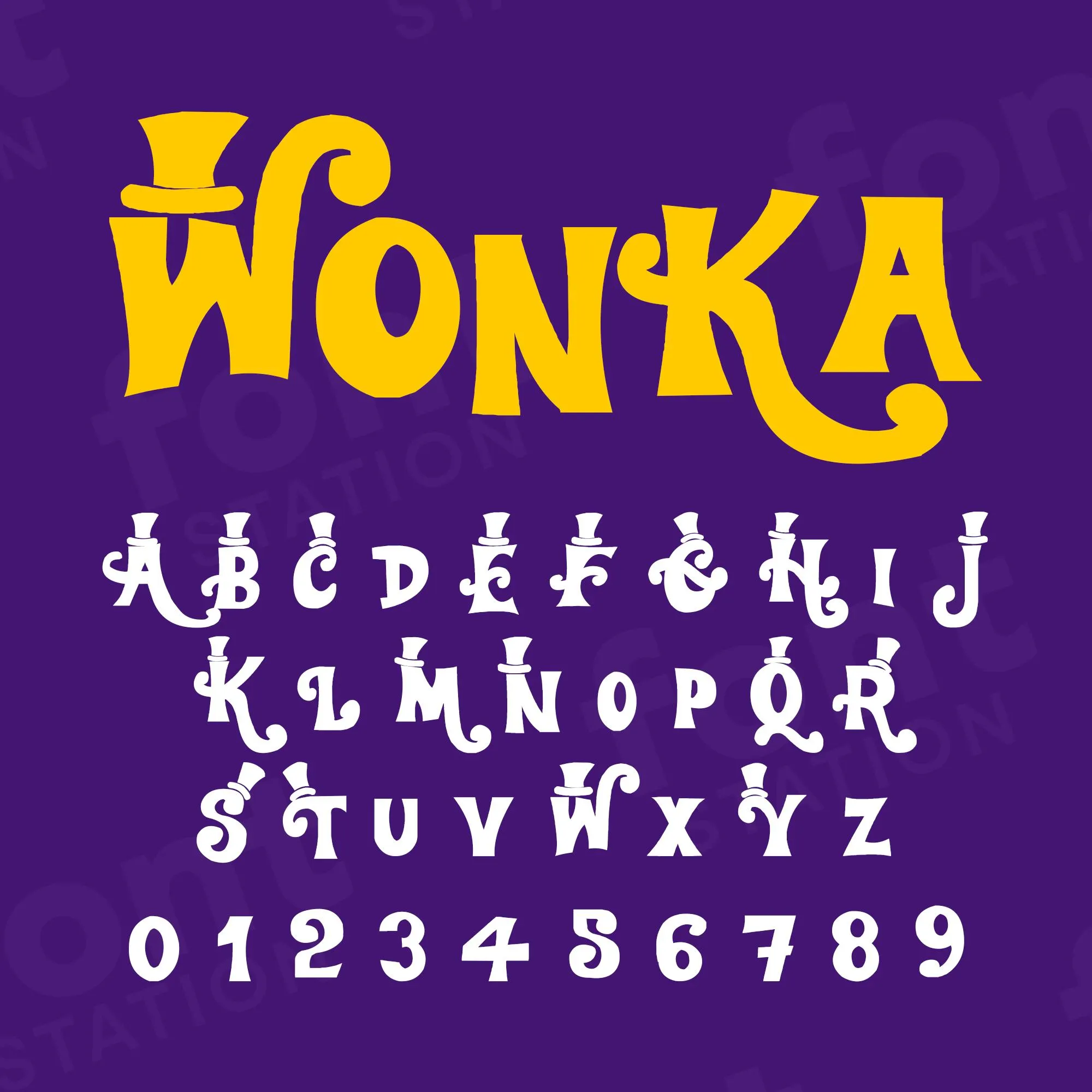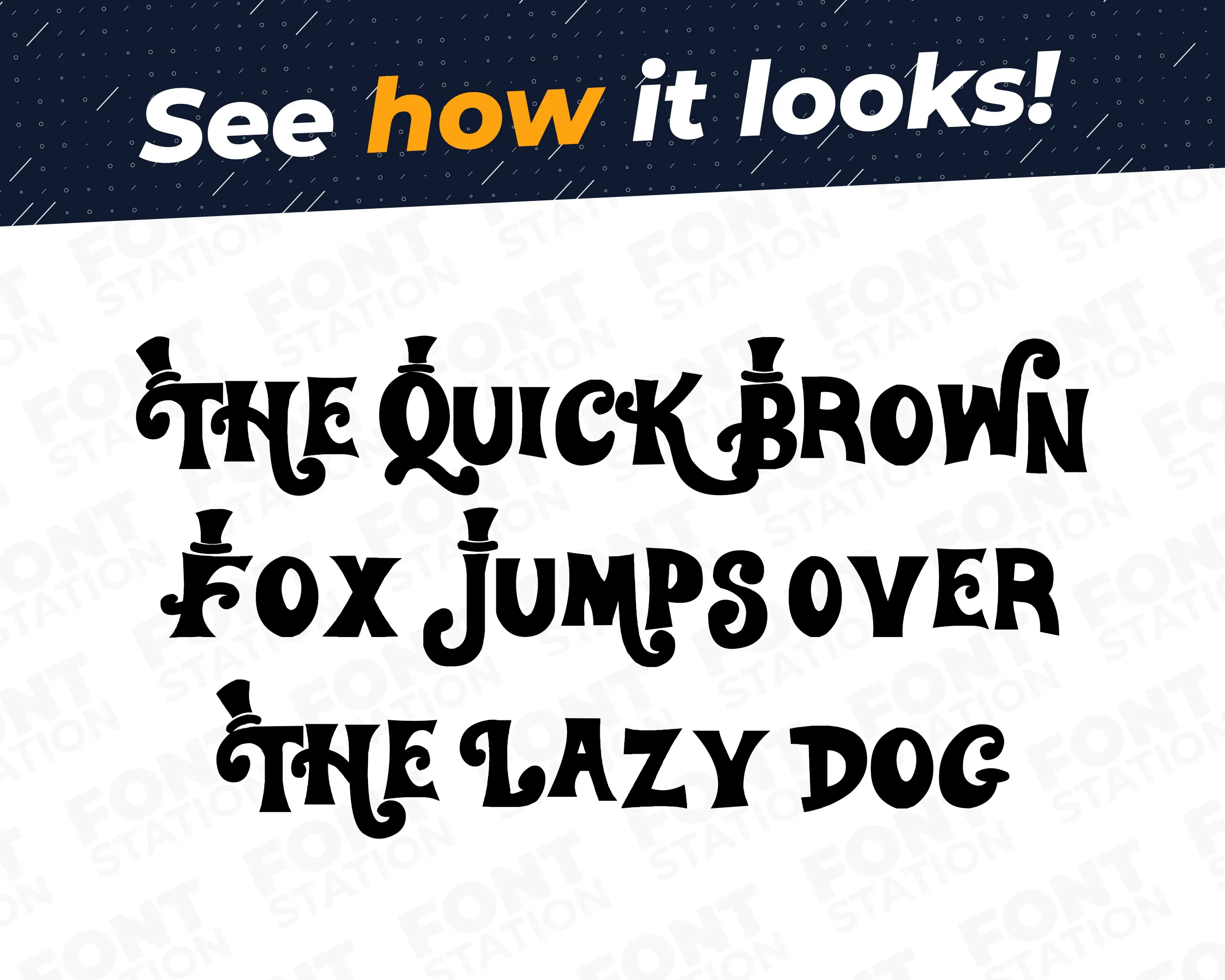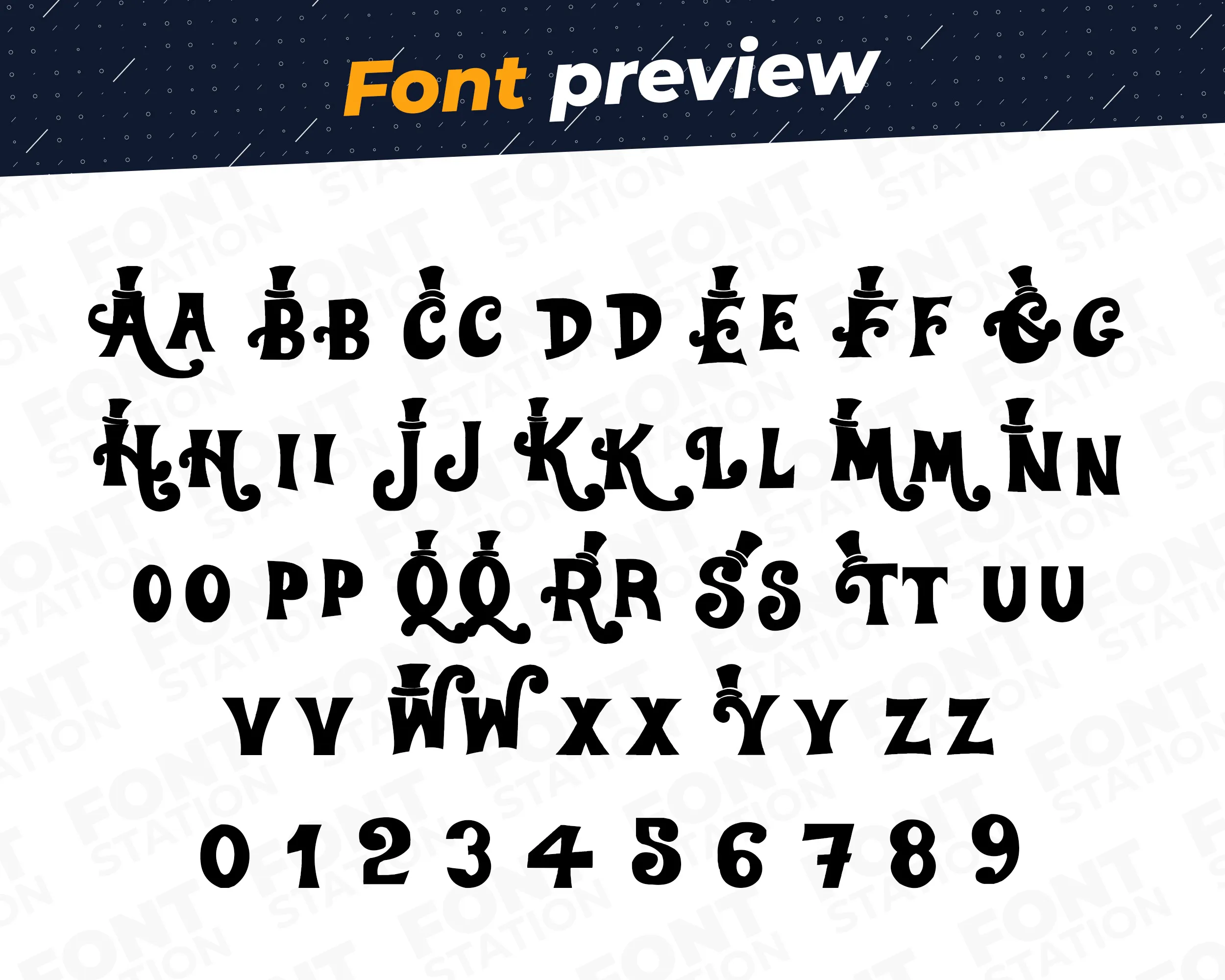
Our Wonky Chocolate typeface, inspired from Willy Wonka font
Grab your computer, tablet or other device and start creating right now with our Willy Wonka font letters! Our Wonky Chocolate typography is inspired from Willy Wonka movie font, making it ideal for various digital creations (logo, word…), sublimation, cake toppers, stickers, event decorations, and more.